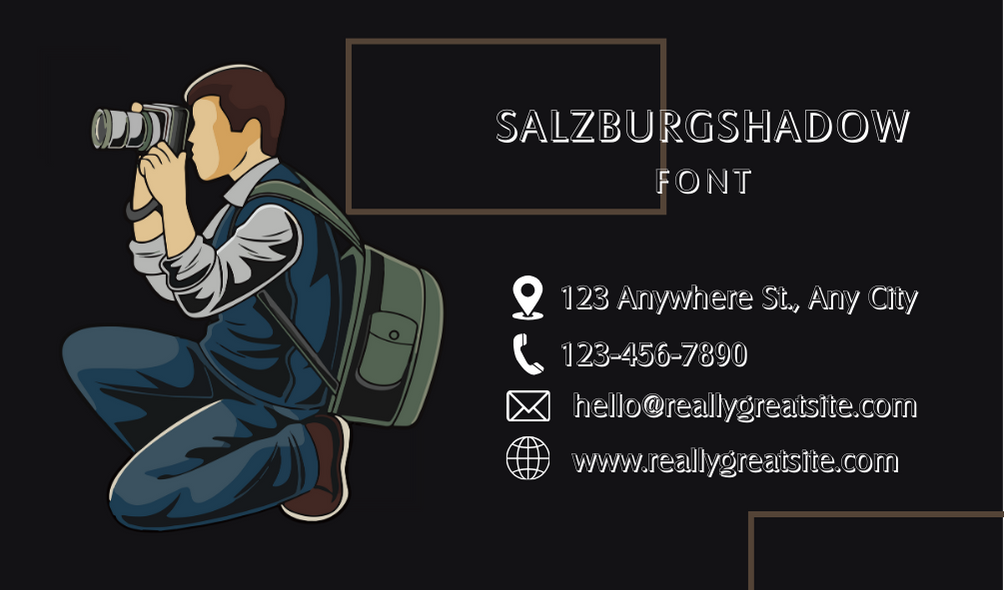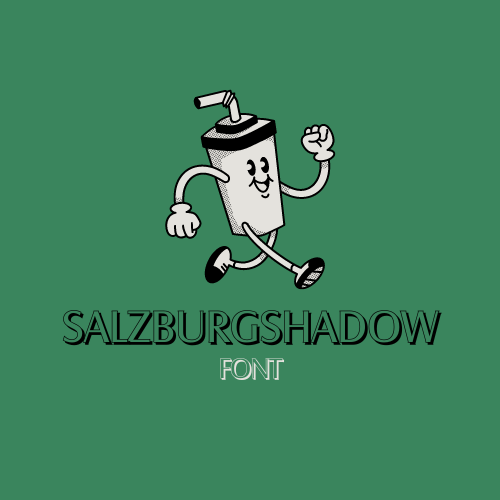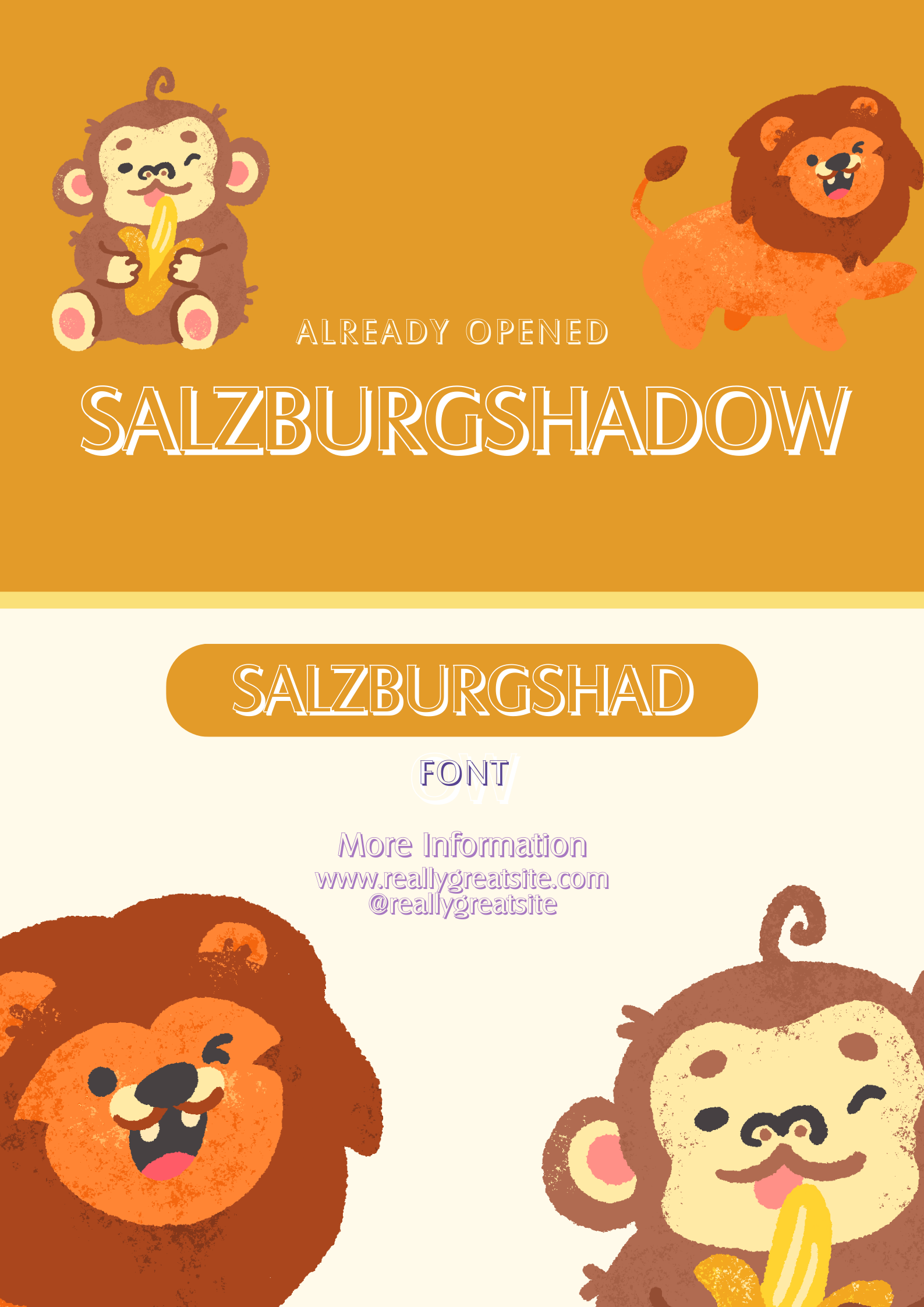
Salzburg Shadow is a fun and versatile font that is perfect for a variety of designs. It is free to use for personal projects, and it is available in the Regular font subfamily. The font was designed by SoftMaker Software GmbH.